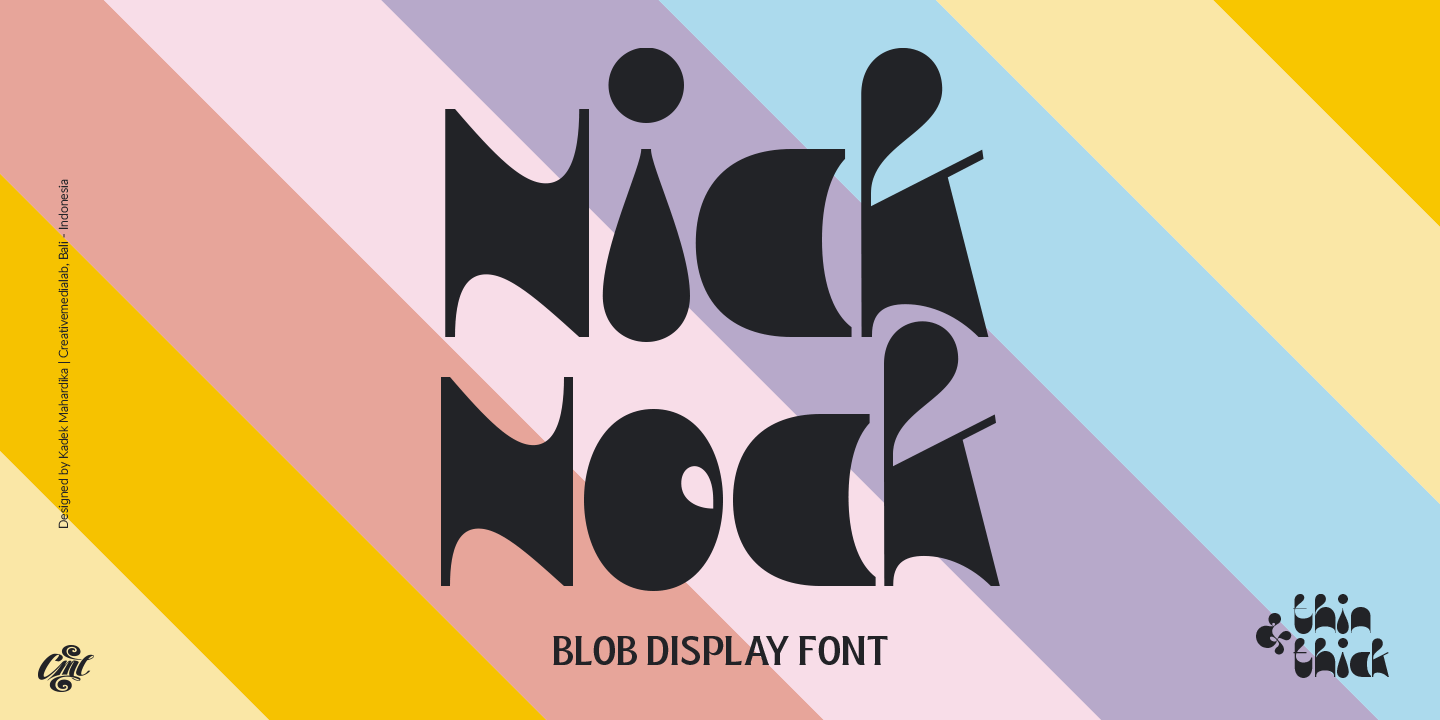
Nick Nock Font is perfect for vintage-inspired branding, retro poster designs, classic diner signage, nostalgic advertising campaigns, old-school barbershop logos, antique store branding, heritage museum displays, traditional pub signage, classic automotive graphics, vintage fashion labels, throwback music album covers, and historical recreation projects.
What makes Nick Nock Font so exciting is its authentic vintage character that perfectly captures the charm and craftsmanship of traditional typography from bygone eras. This distinctive typeface features classic proportions, timeless letterforms, and subtle design details that evoke feelings of nostalgia and reliability, making it ideal for brands that want to communicate heritage, quality, and time-tested authenticity.
The Nick Nock Font family typically includes regular and bold variations with classic styling options, alternative character sets, and vintage-inspired ligatures that enhance the traditional aesthetic while ensuring modern usability across various design applications.
Whether you're creating branding for artisanal businesses or designing materials for heritage-focused projects, Nick Nock Font Free Download provides the perfect typography solution for designs that need to convey classic elegance and vintage sophistication. This versatile font seamlessly bridges the gap between historical authenticity and contemporary functionality, making it an invaluable asset for designers working on projects that celebrate traditional craftsmanship and timeless design principles.